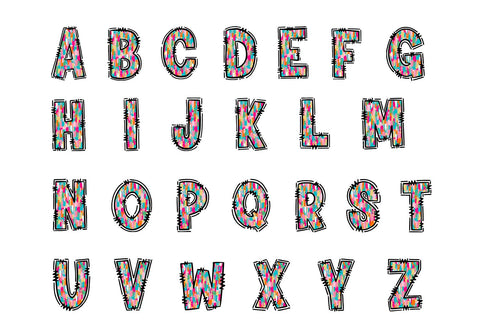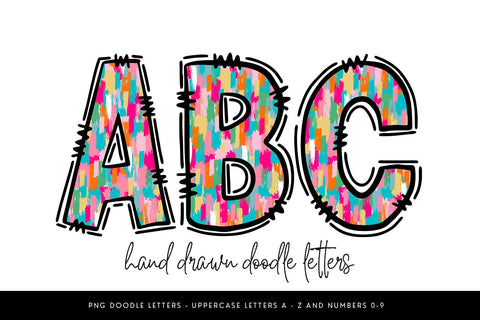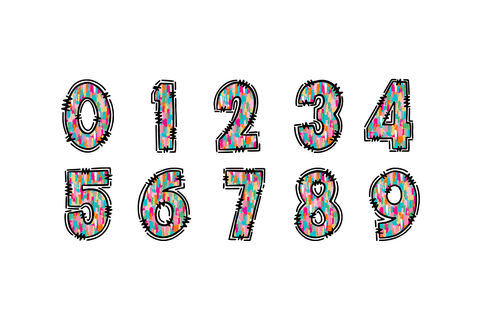
Rainbow Brush Stroke Alphabet PNG, Colorful Doodle Letters
Brighten up any project with this bold and colorful brush stroke doodle alphabet! Featuring a playful rainbow palette with hand-drawn outlines, this PNG clipart set includes uppercase A–Z and numbers 0–9—perfect for sublimation, school signs, classroom decor, birthday crafts, or digital art. Vibrant, fun, and ready to download instantly.
✦ Uppercase letters A-Z
✦ Numbers 0 - 9